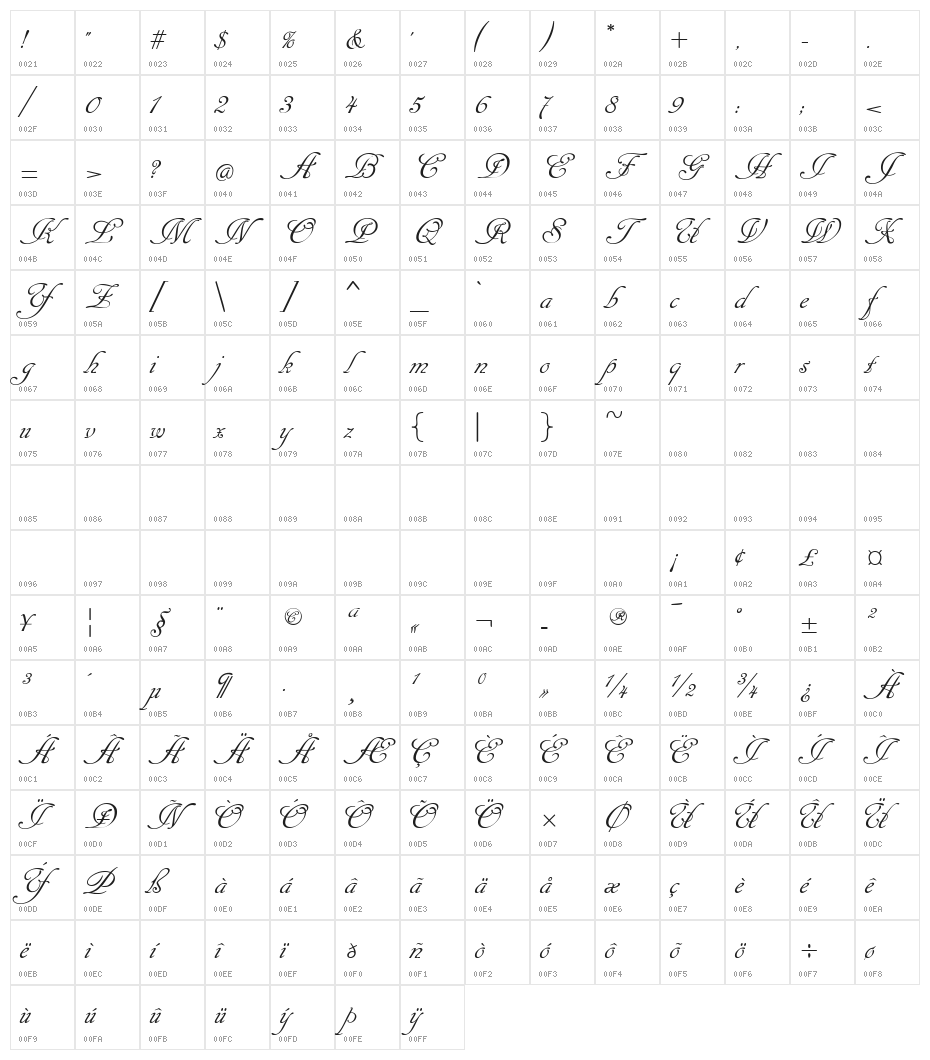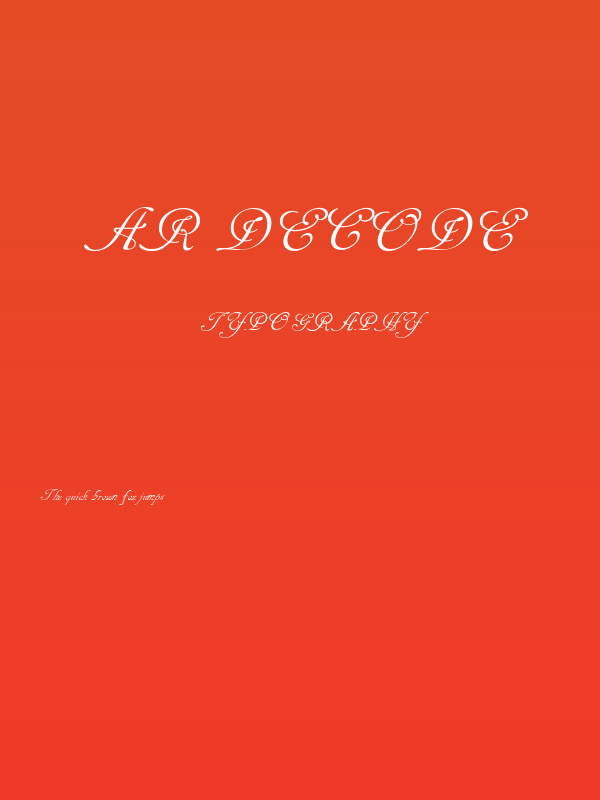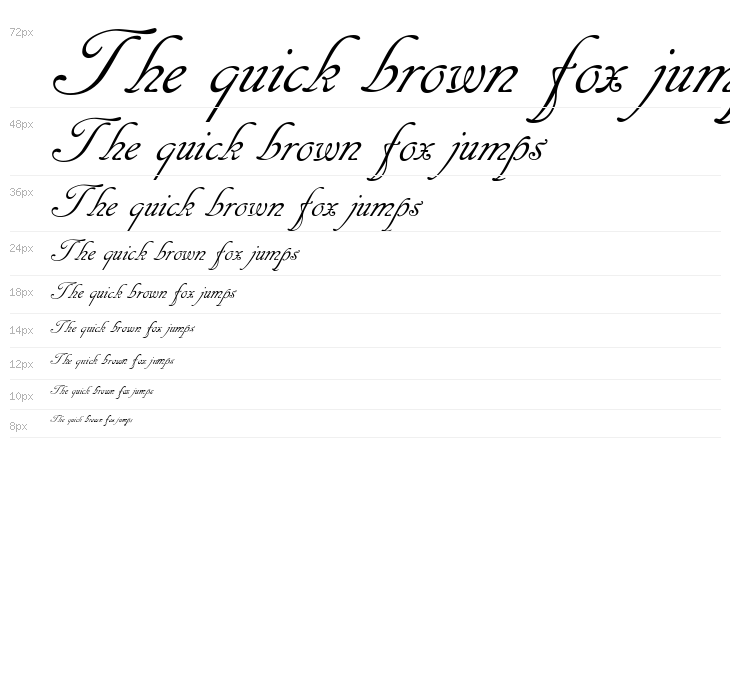
AR DECODE Font
AR DECODE Description
This elegant script font features flowing, cursive letters that exude sophistication and grace. The uppercase letters are intricately designed with flourishes and loops, giving them a classic and decorative appearance. The lowercase letters maintain a consistent style, with smooth curves and a slight slant that enhances readability while retaining an artistic flair. Numbers and special characters are crafted to match the overall aesthetic, ensuring a cohesive look across all text. The font's delicate strokes and high contrast between thick and thin lines add to its refined and polished look, making it ideal for formal invitations, branding, and other projects that require a touch of elegance.
| Overall Style | Classic |
| Use Case | Logos, Invitations, Branding |
| Proposed Projects | Ideal for wedding invitations, luxury branding, elegant signage, and formal event programs. |